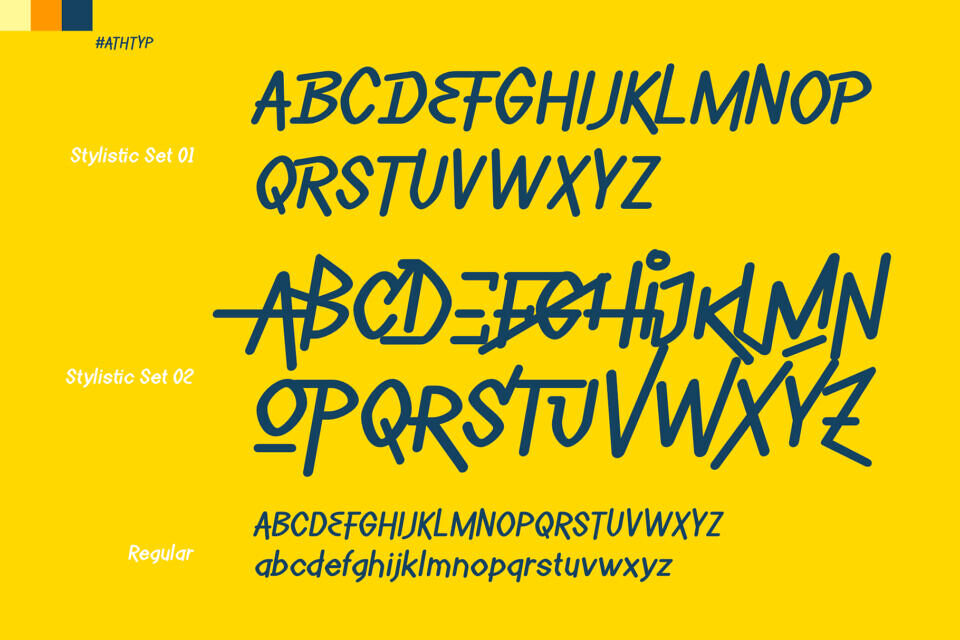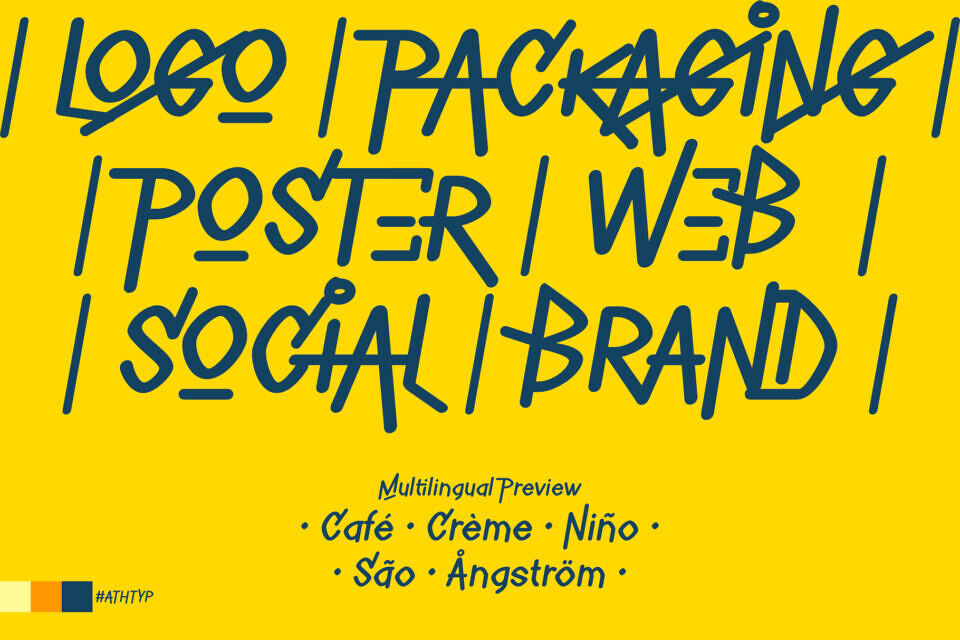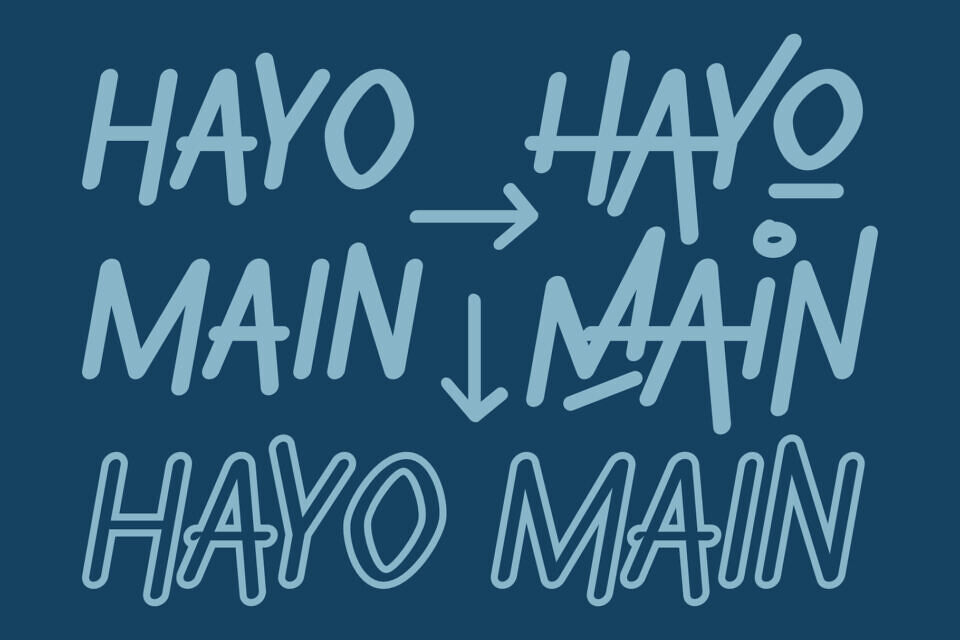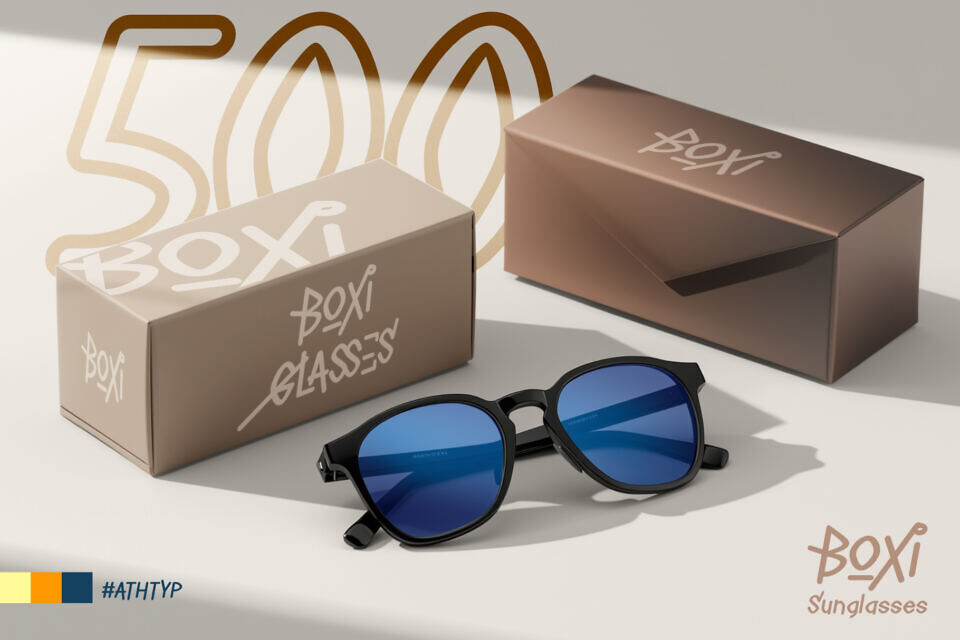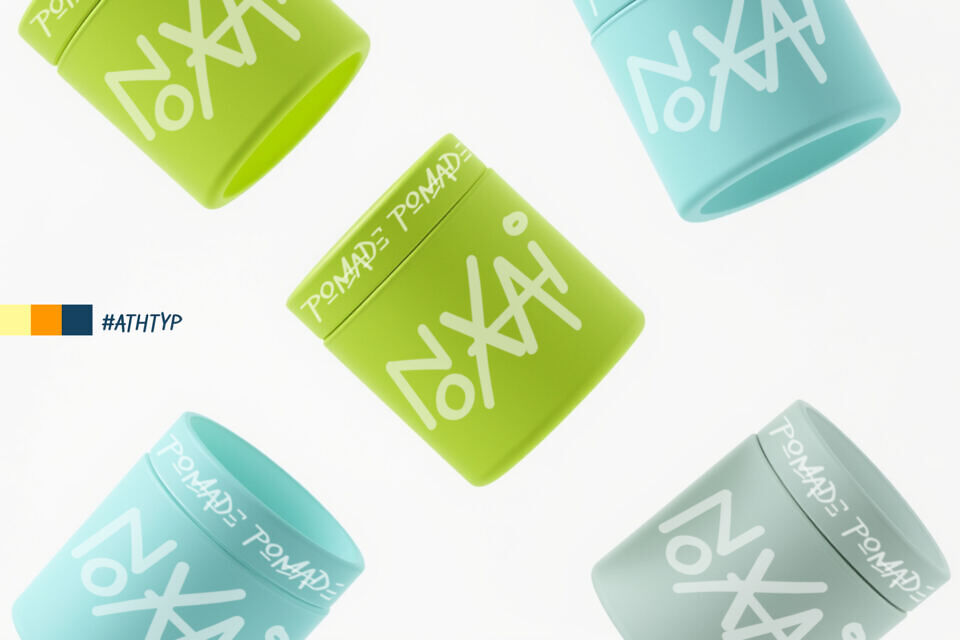
Wavag Font
Wavag is a fun and expressive display logo font designed to create bold, memorable, and high-impact branding. This logo font features playful hand-drawn letterforms with organic curves and dynamic shapes that bring energy, creativity, and personality to any design project.
Perfect as a logo font for creative brands, streetwear labels, coffee shops, lifestyle businesses, youth culture, posters, packaging, and social media content, Wavag helps your logo stand out with a unique and lively visual style. Its distinctive character makes this display logo font especially effective for brands that want to communicate confidence, freedom, and originality.